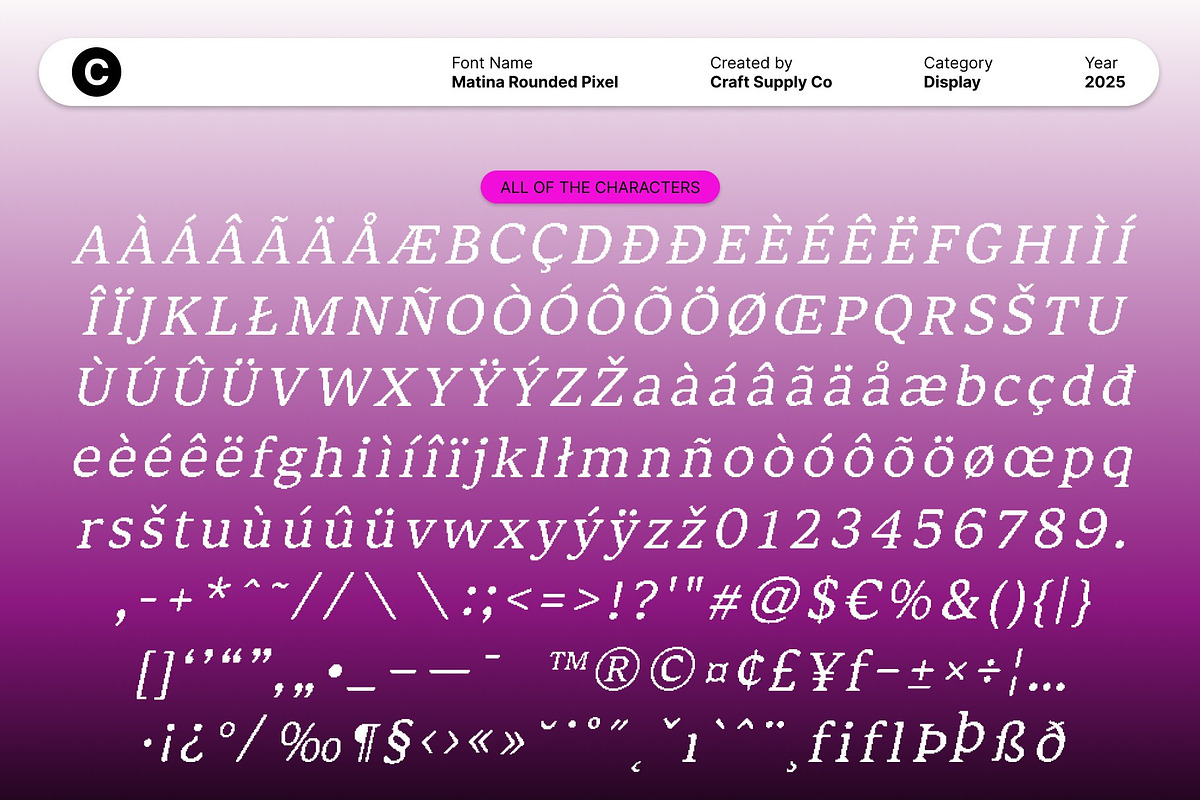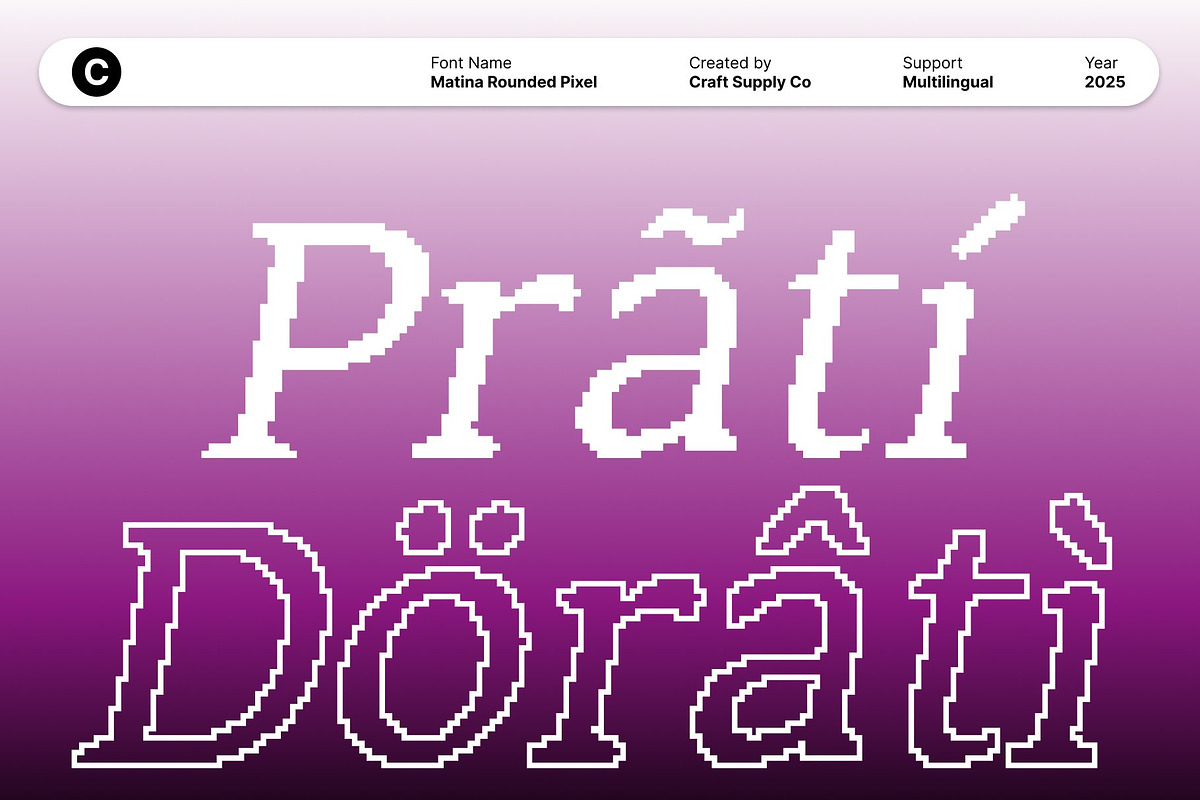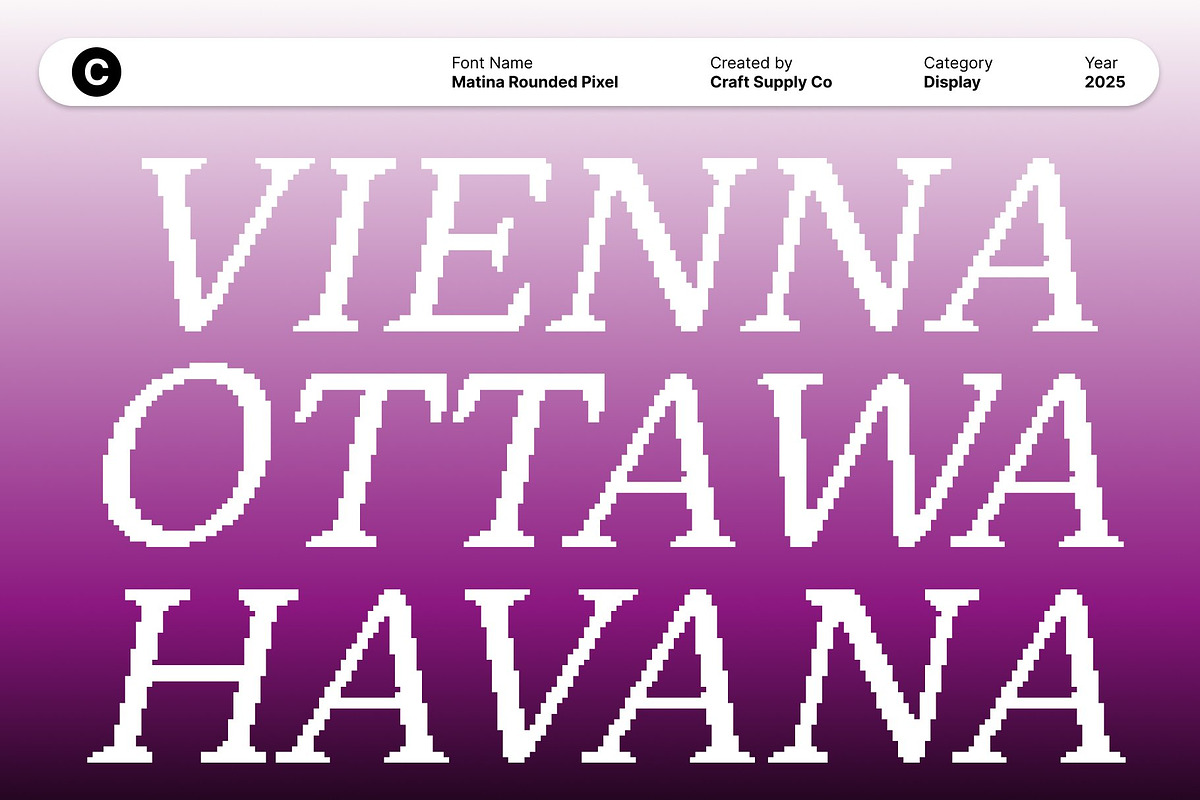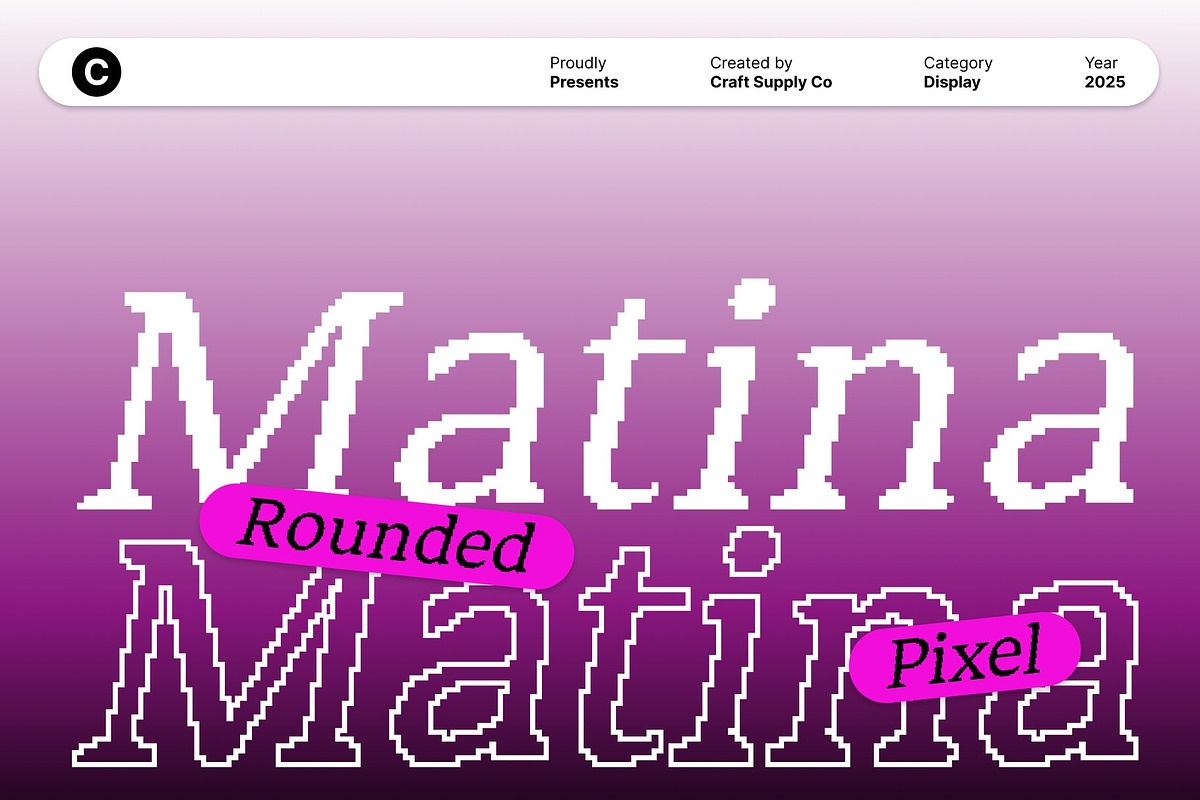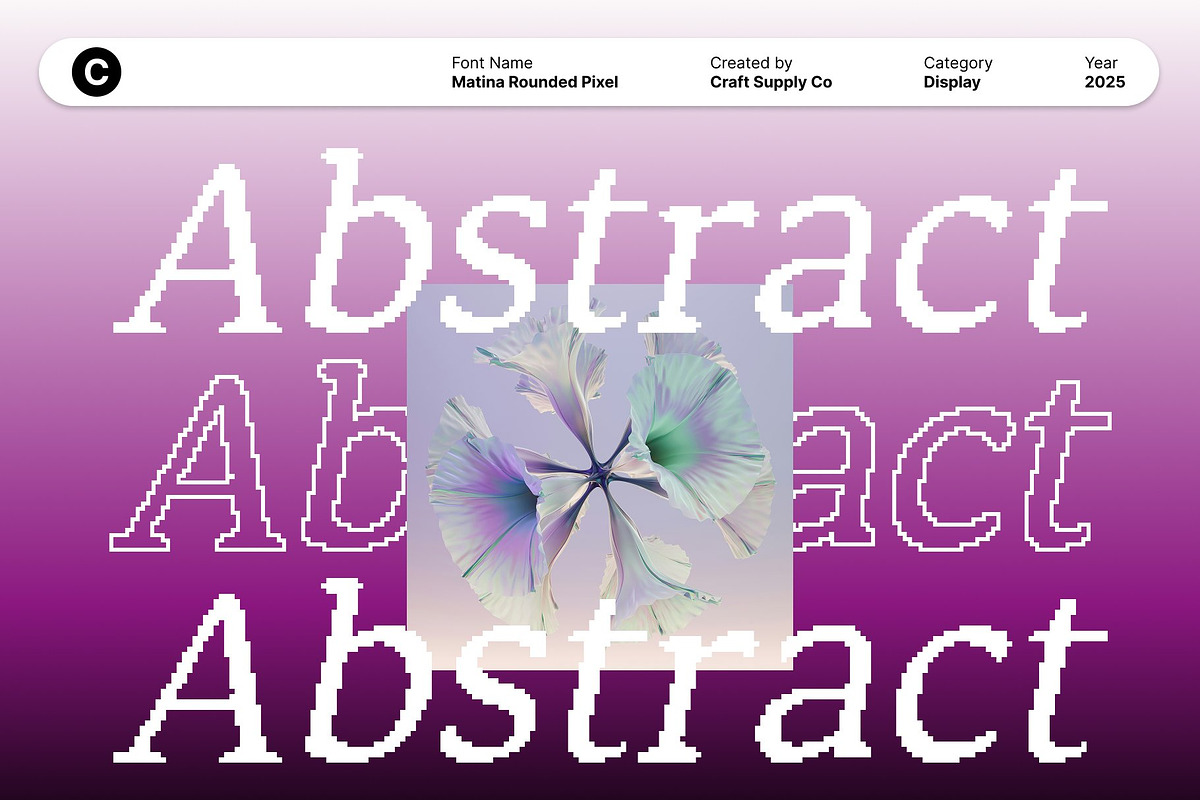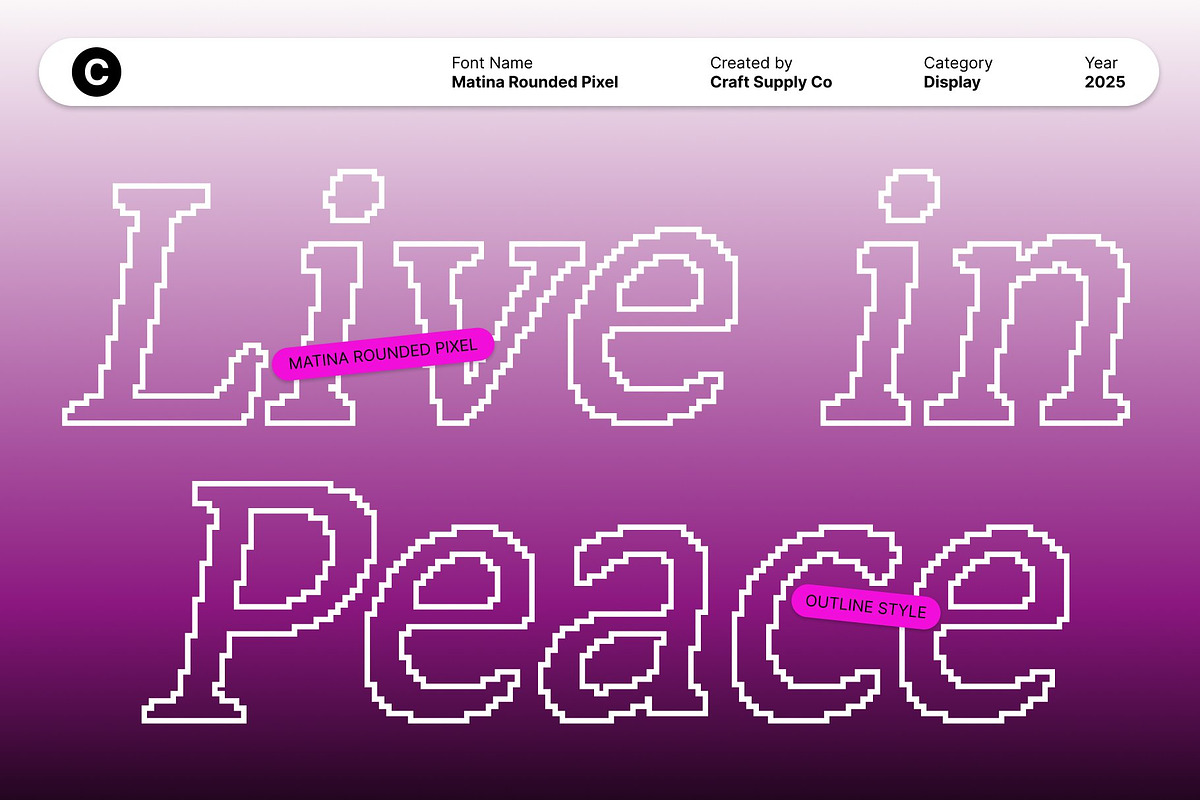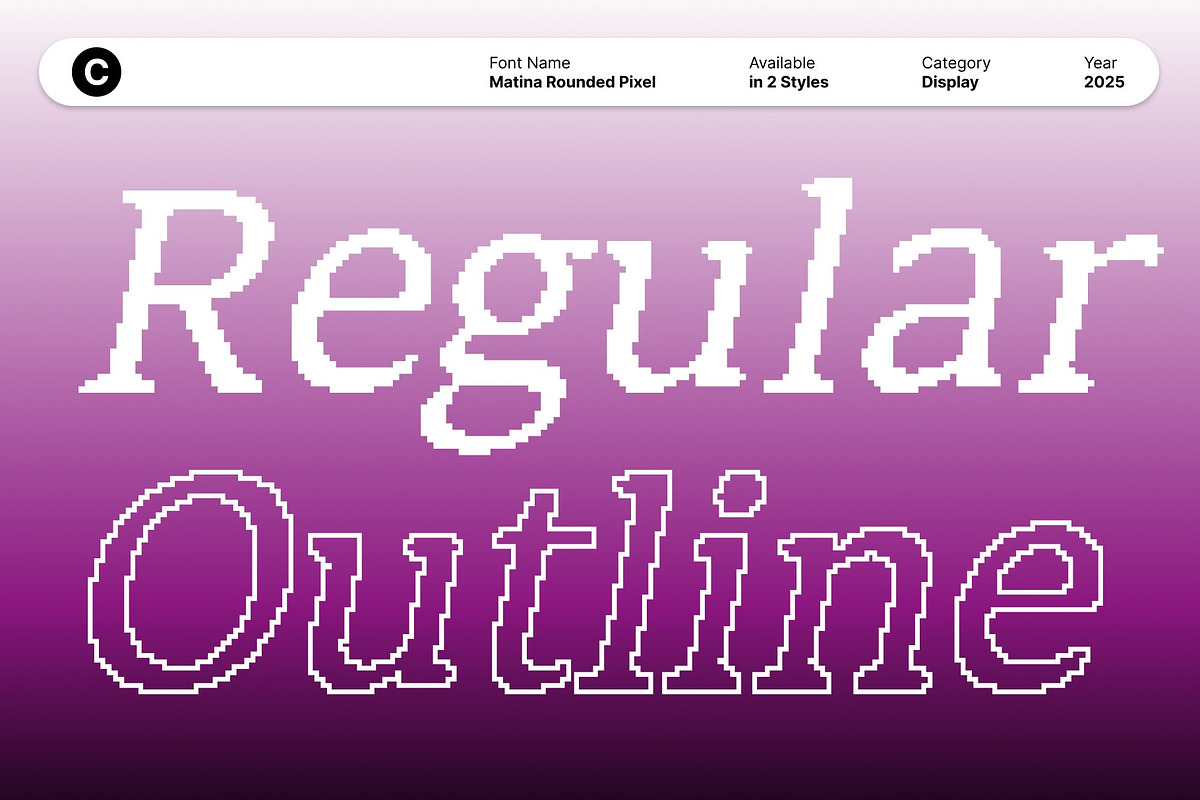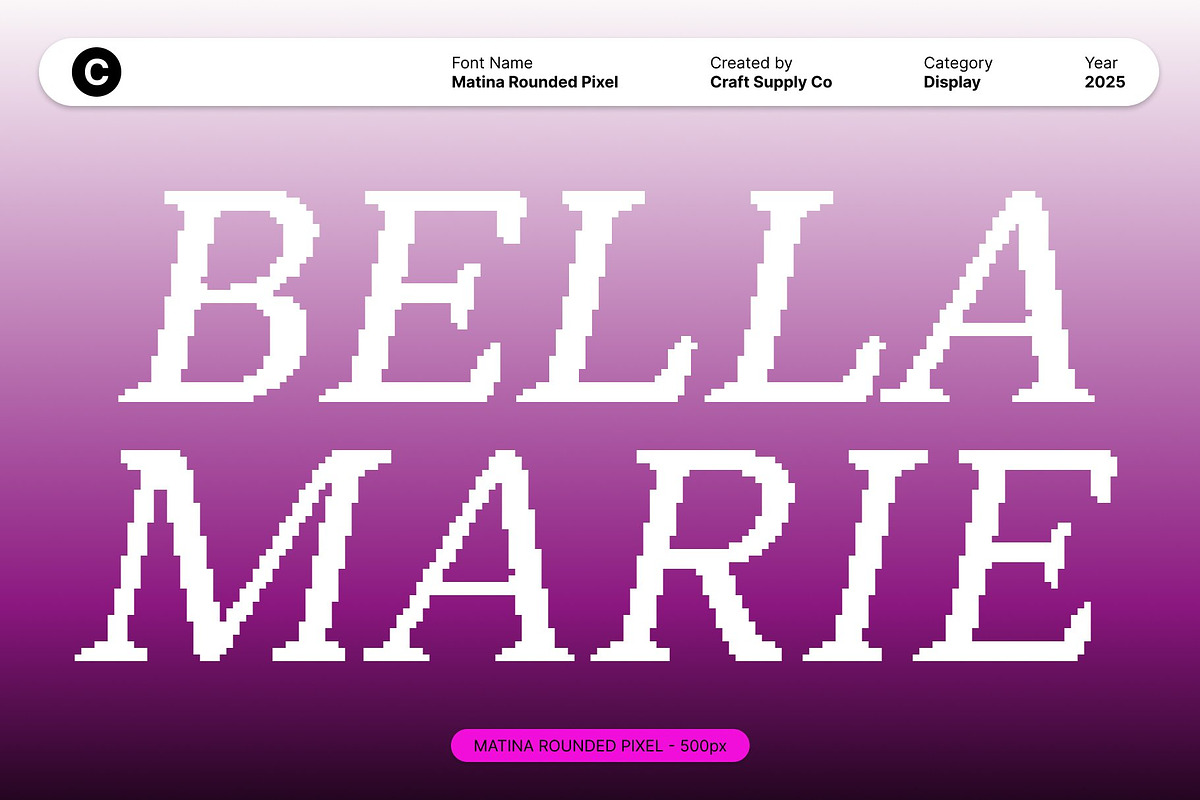
Matina Rounded Pixel
Matina Rounded Pixel – Modern Serif Display Font with Pixel Precision
Clean Slender Lines for Sophisticated Professionalism This is a modern serif display font designed with clean, slender lines in an 80-bit aesthetic, creating a polished and professional appearance. Its precise forms convey elegance and clarity, making it ideal for projects that demand sophistication and refined typography.
Pixel Style for Modern Digital Personality Enhanced with a pixel-inspired style, this font merges classic serif elegance with contemporary digital flair. The pixel detailing adds a modern, tech-savvy character, giving your designs a distinct personality while maintaining readability and visual balance.
Rounded Shapes for Friendly and Approachable Design The rounded terminals soften the geometric structure, creating a warm and approachable feel. These gentle curves provide versatility, allowing the font to perform well in both formal branding and creative editorial layouts while retaining a professional tone.
Perfect for Branding, Posters, and Editorial Layouts This font excels in projects that require a harmonious blend of sophistication and digital modernity. Ideal for branding, posters, or editorial designs, it delivers a polished yet contemporary presence. The combination of clean lines, rounded forms, and pixel-inspired details makes this font a perfect choice for designers seeking professional, stylish, and digitally expressive typography.